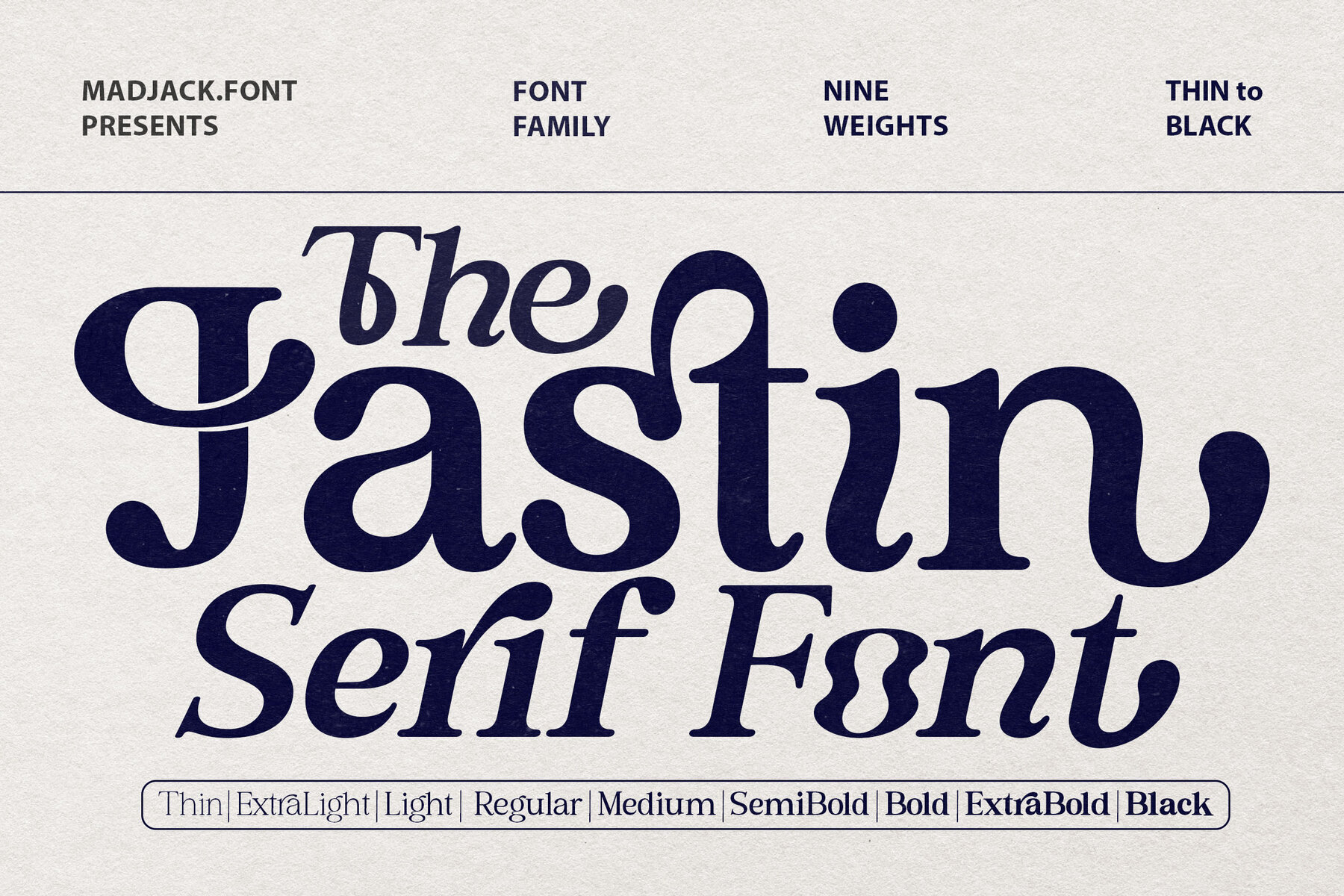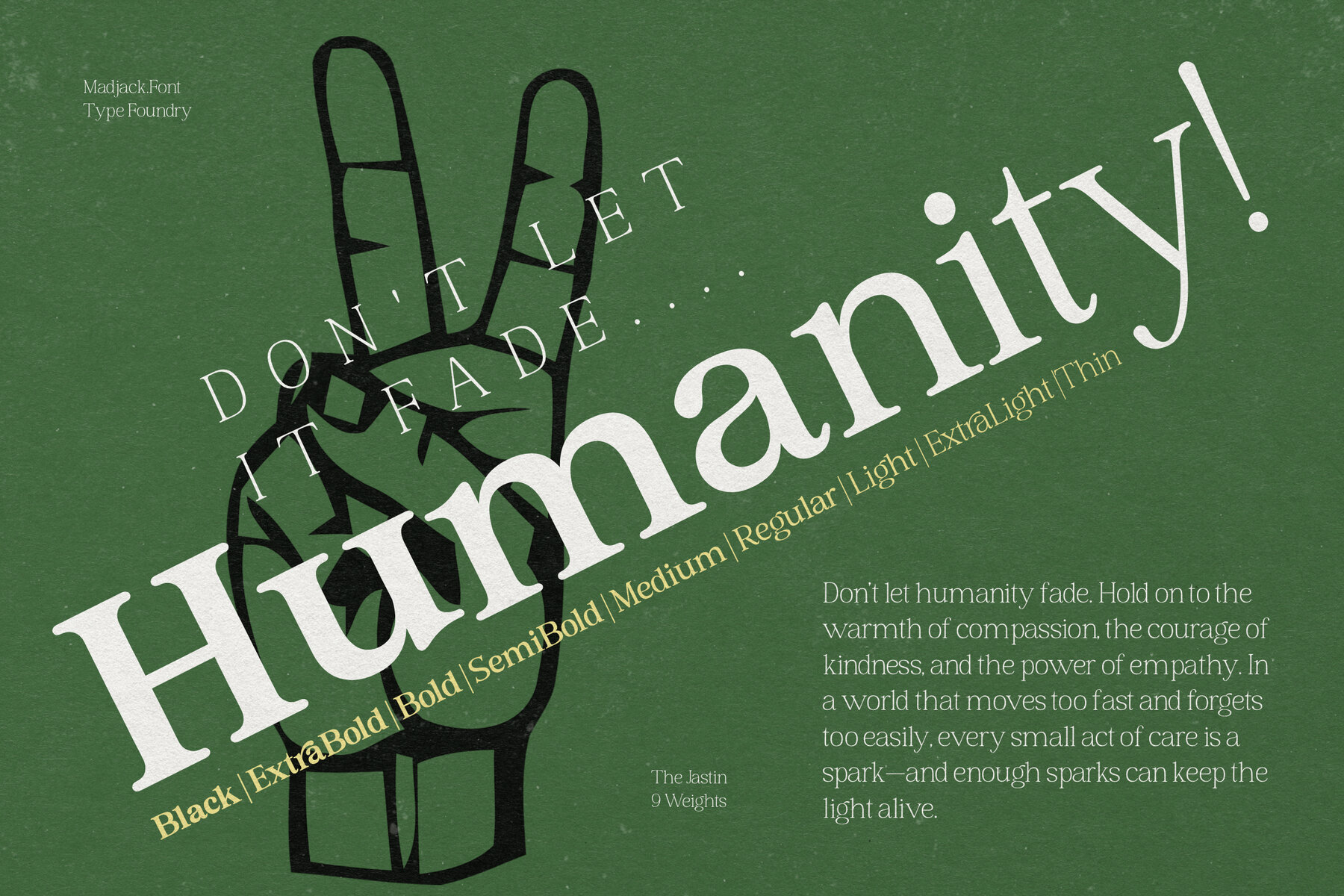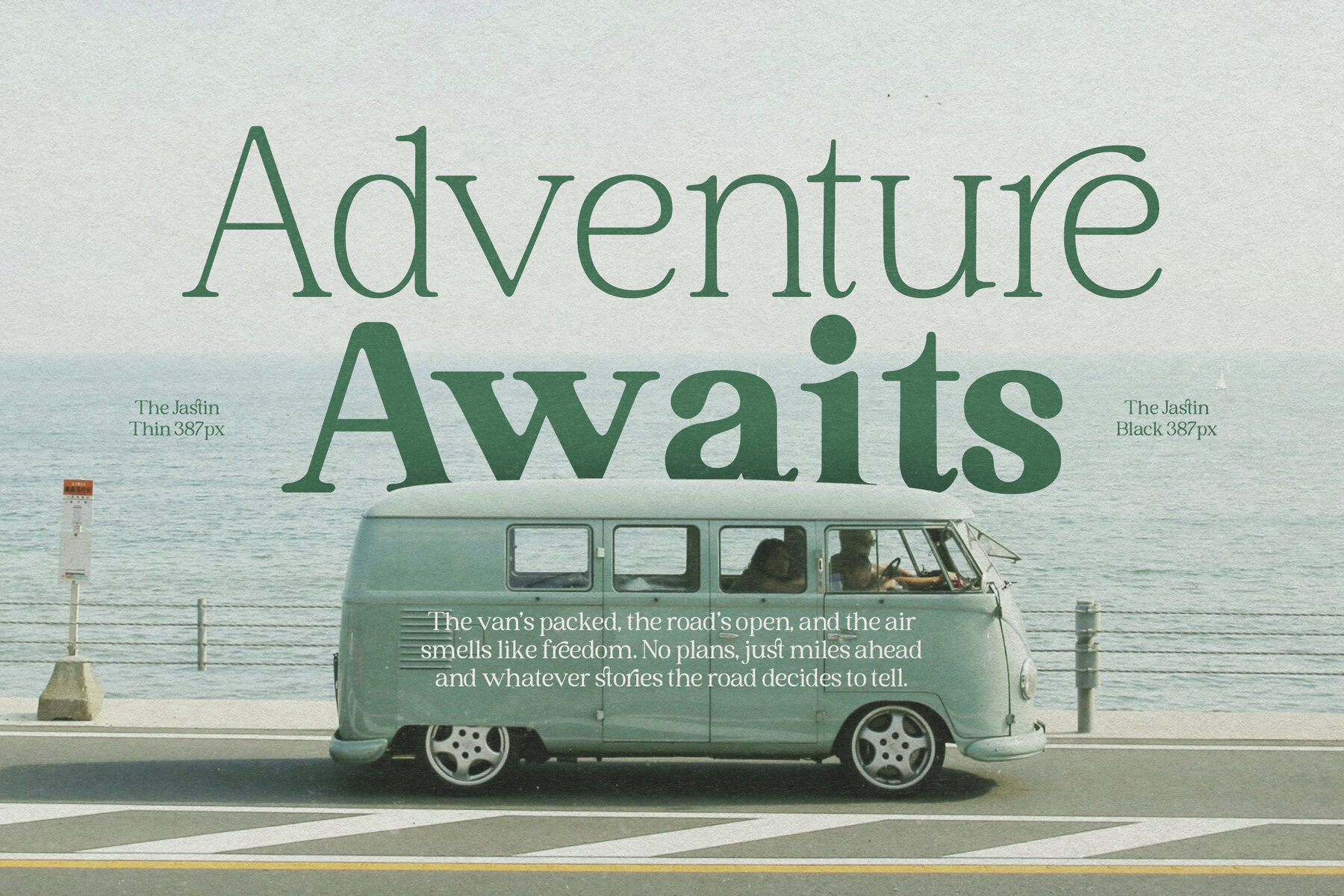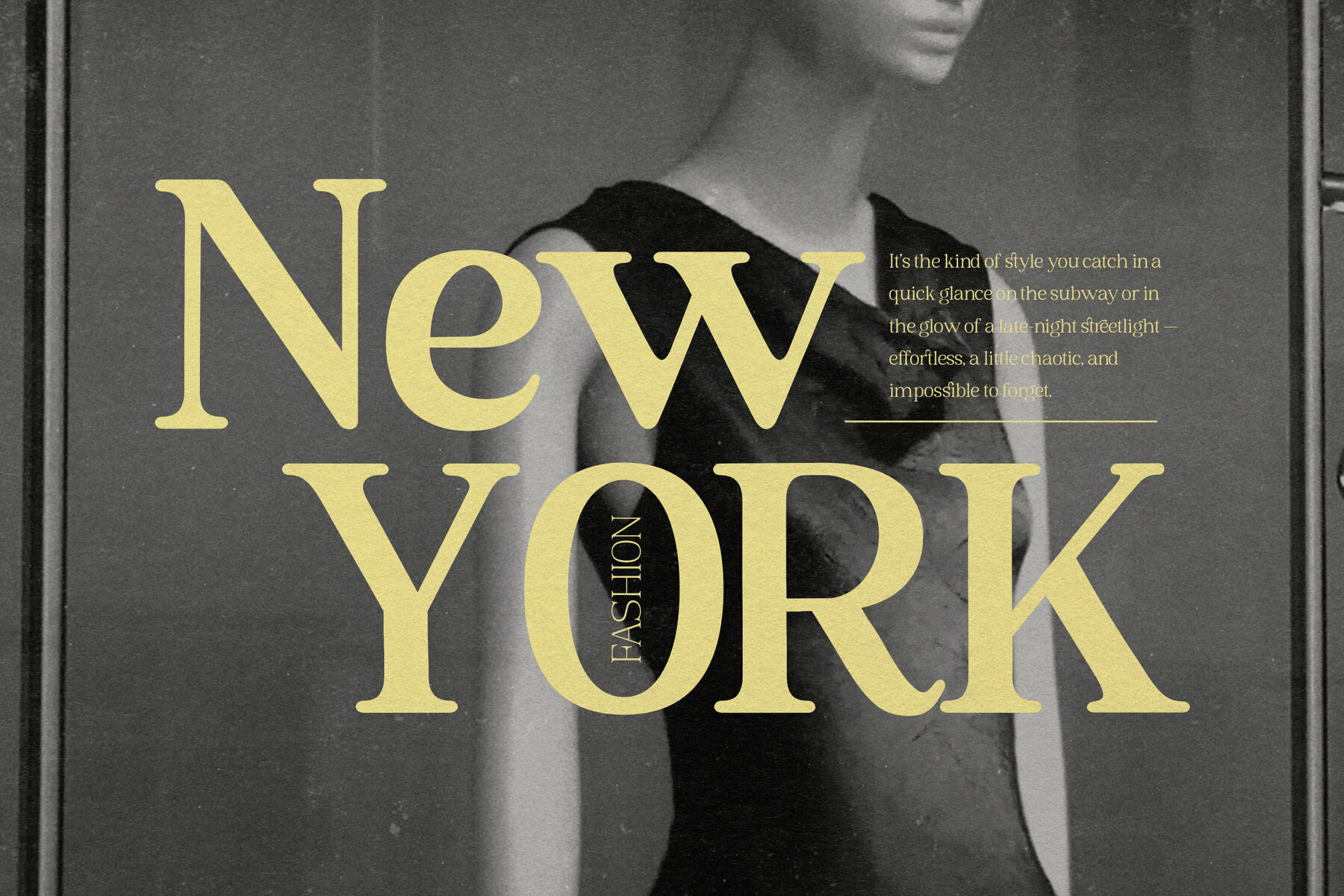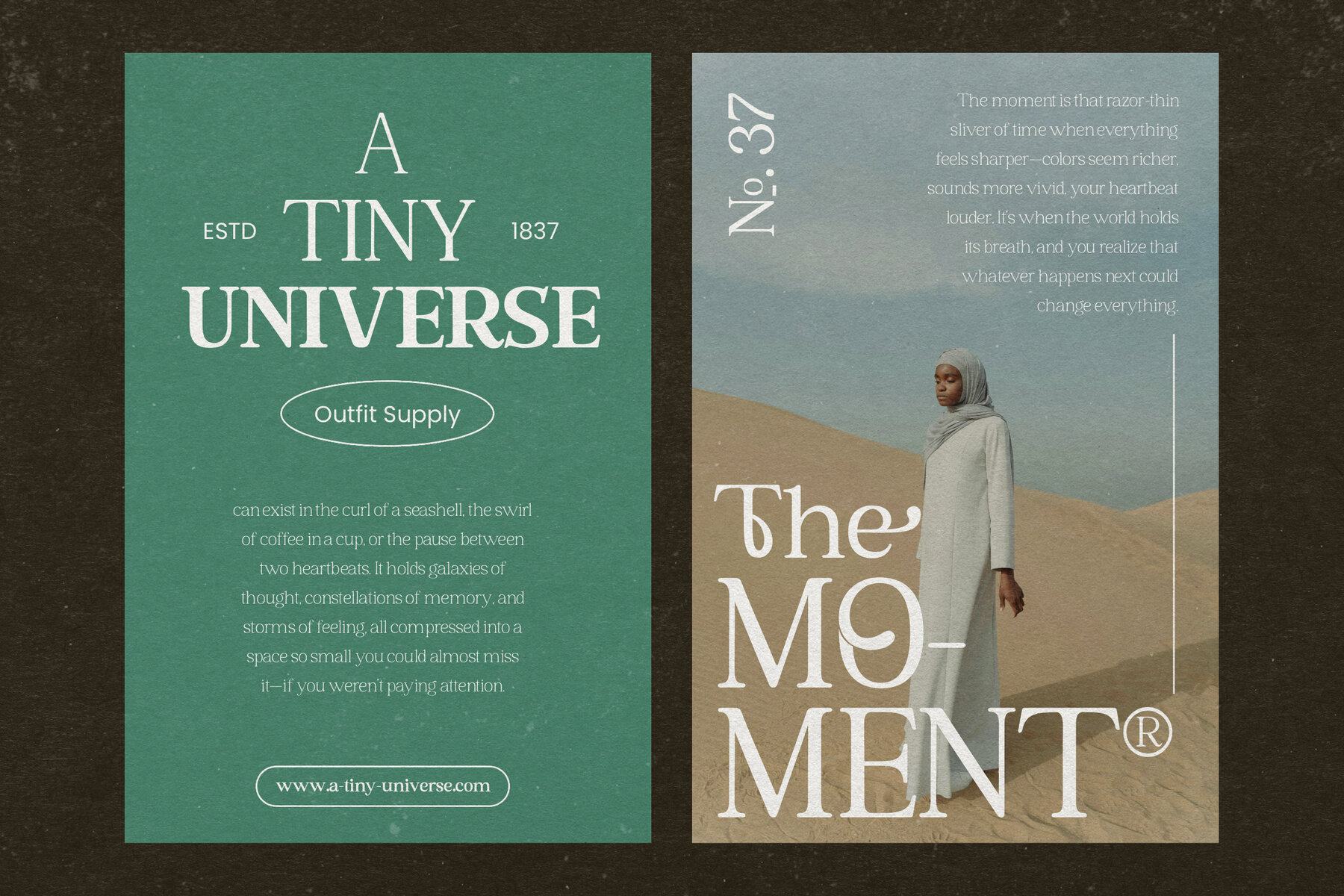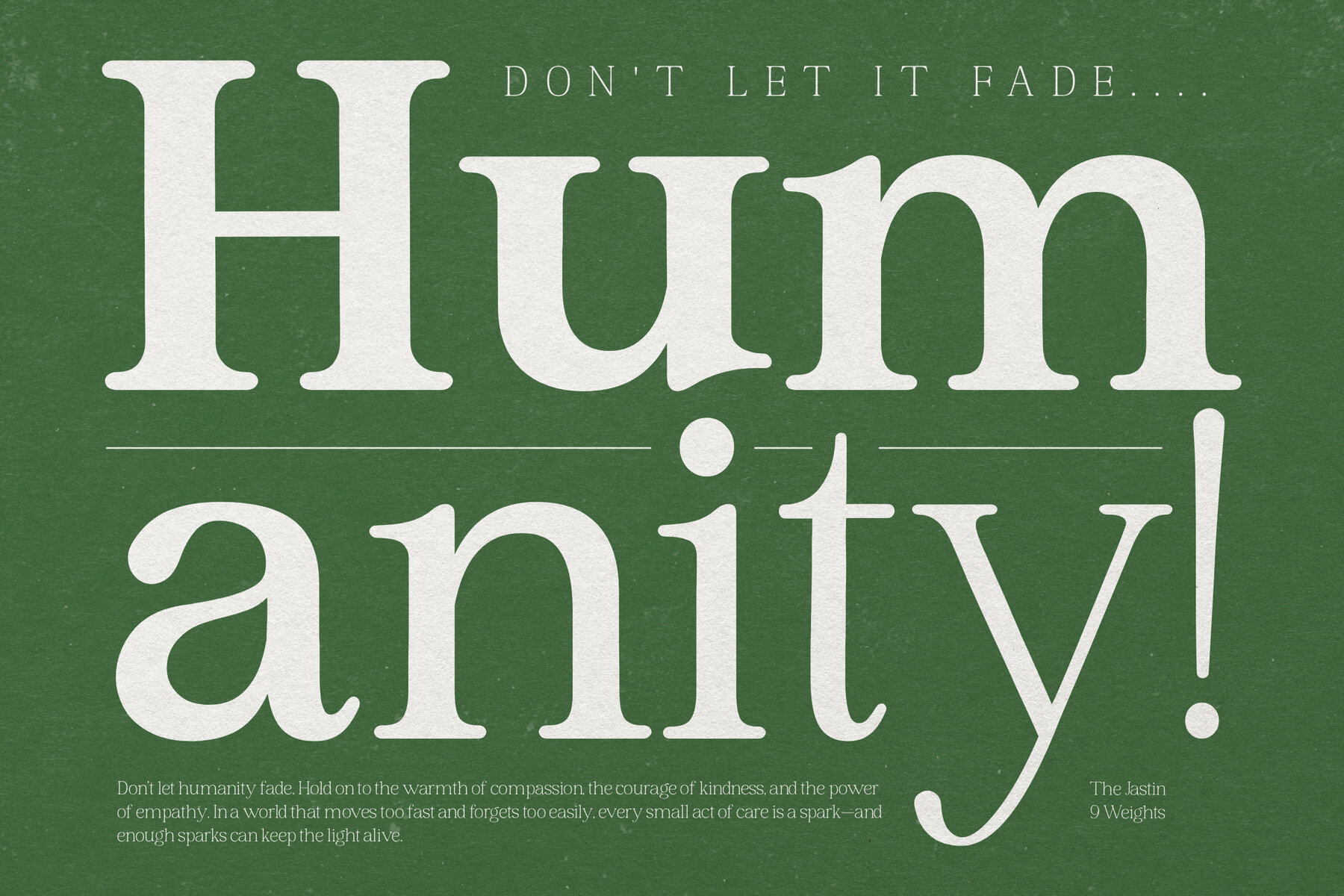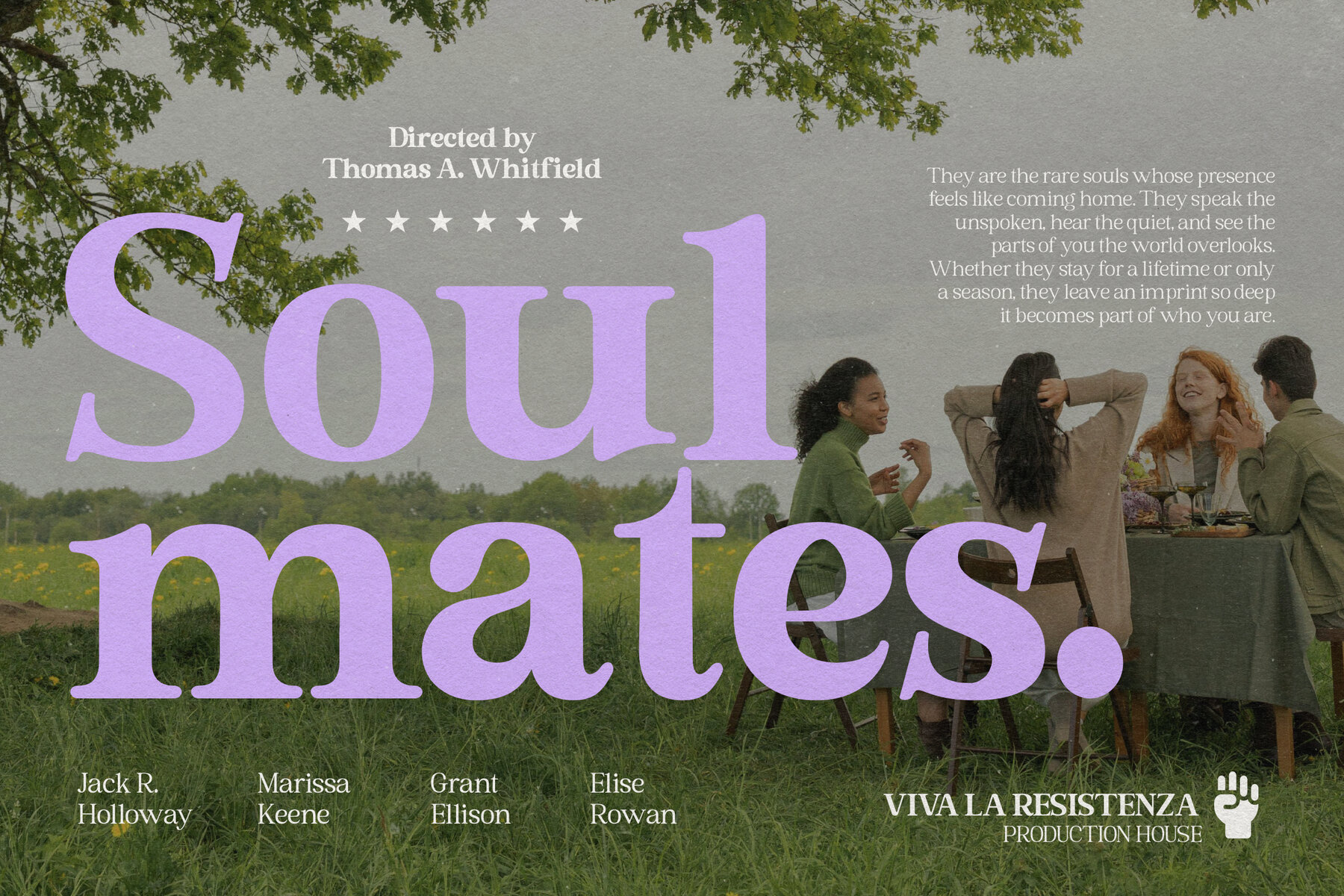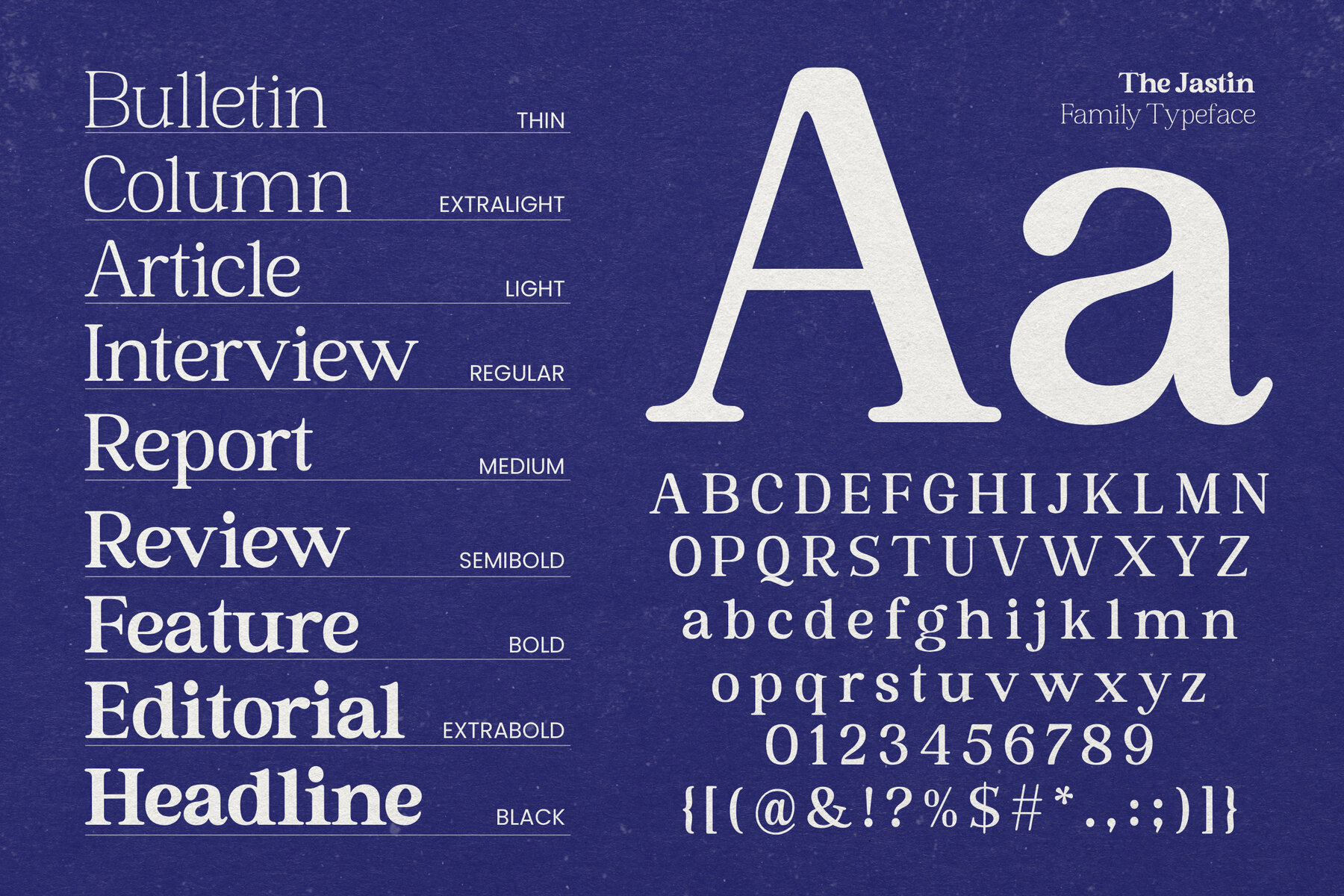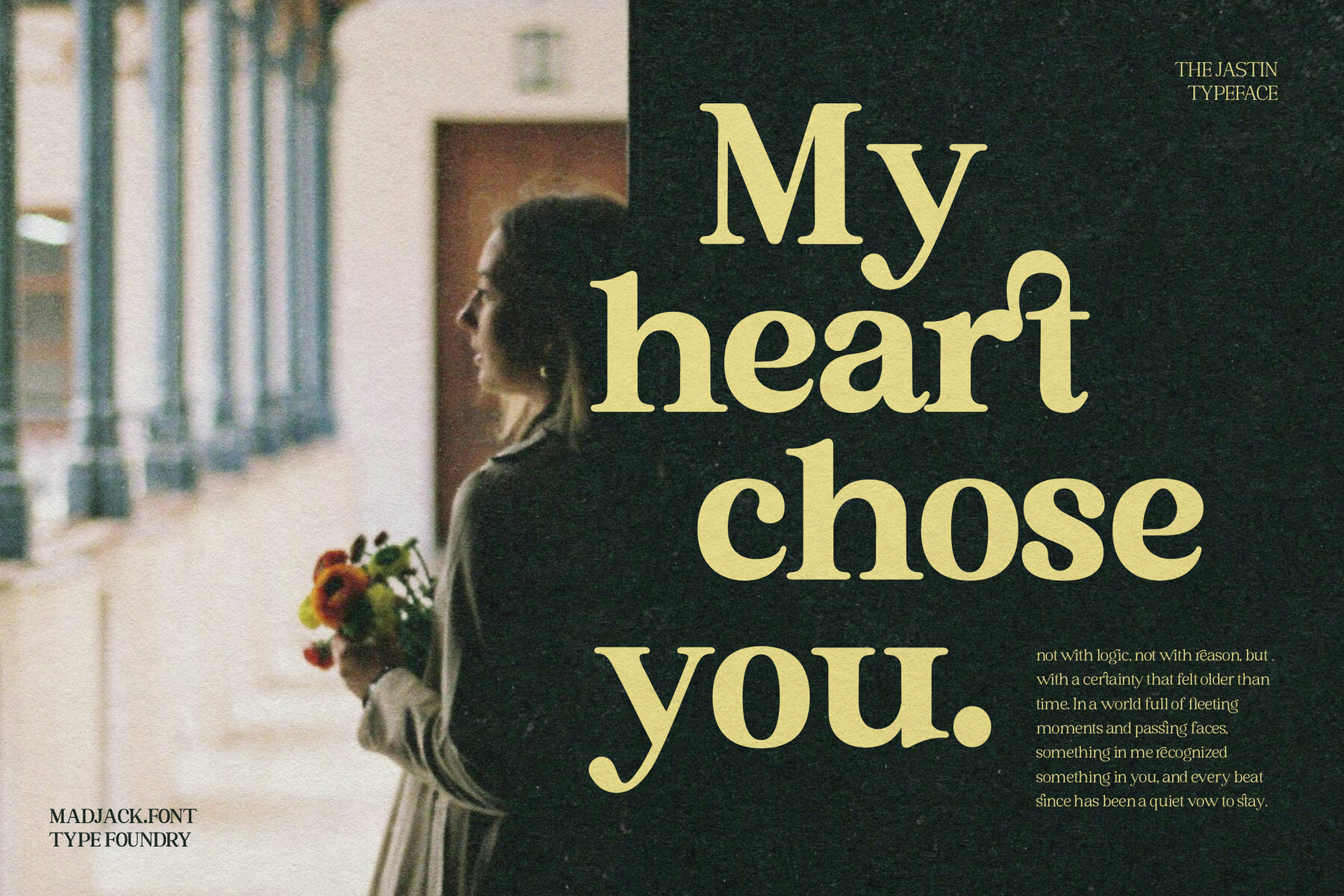
The Jastin Font
The Jastin serif font brings a refined aesthetic to any design project. Its classic letterforms and balanced curves make it an excellent choice for editorial layouts, wedding invitations, and branding materials. The elegant style ensures readability while offering a modern touch that suits both digital and print designs. Featuring a clean oblique variant, Jastin maintains versatility across diverse uses—from magazine headlines to sophisticated poster graphics. Subtle ligatures and precise punctuation details further enhance the font’s visual appeal, allowing you to achieve a cohesive and professional result on any creative project. The Jastin Serif Font